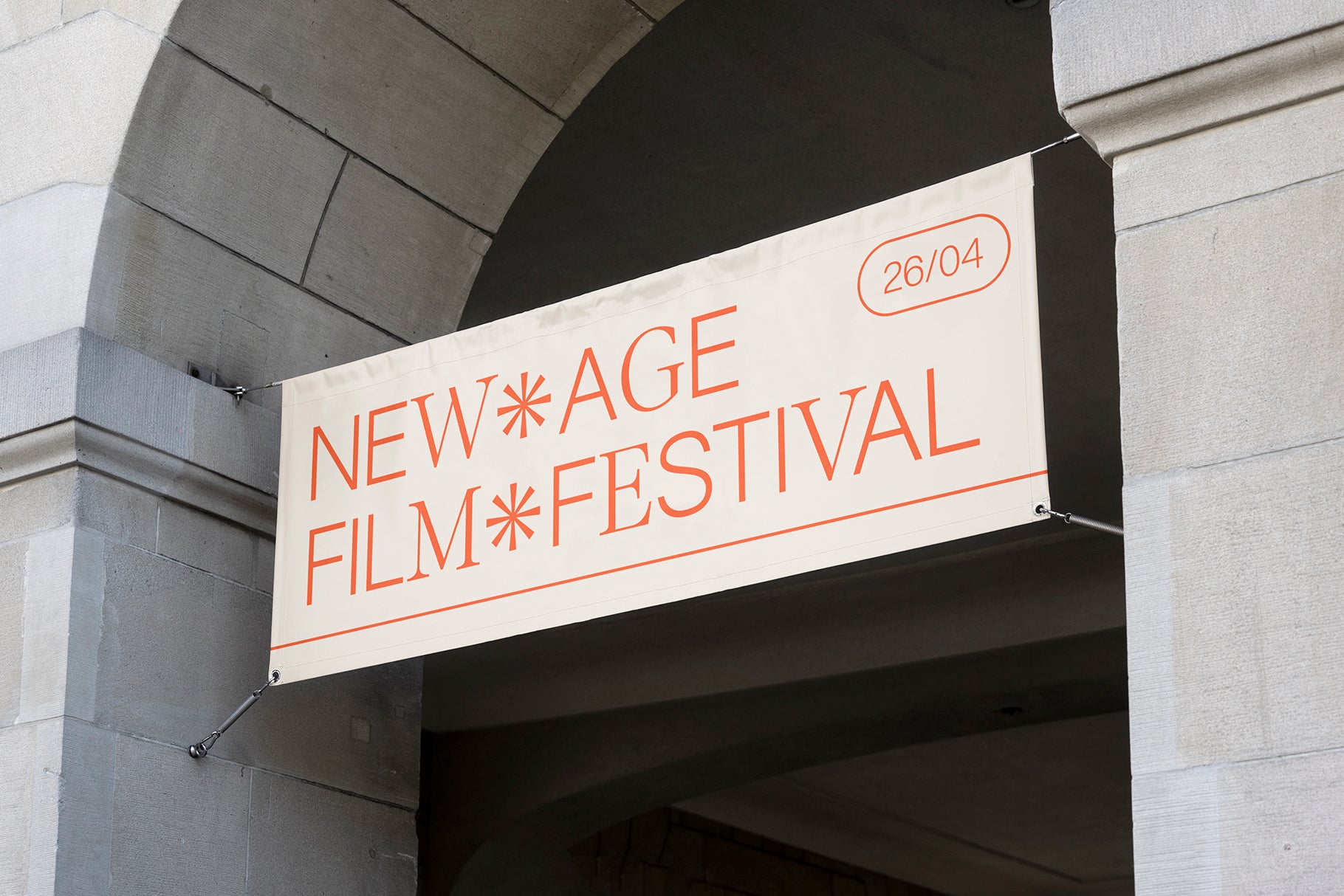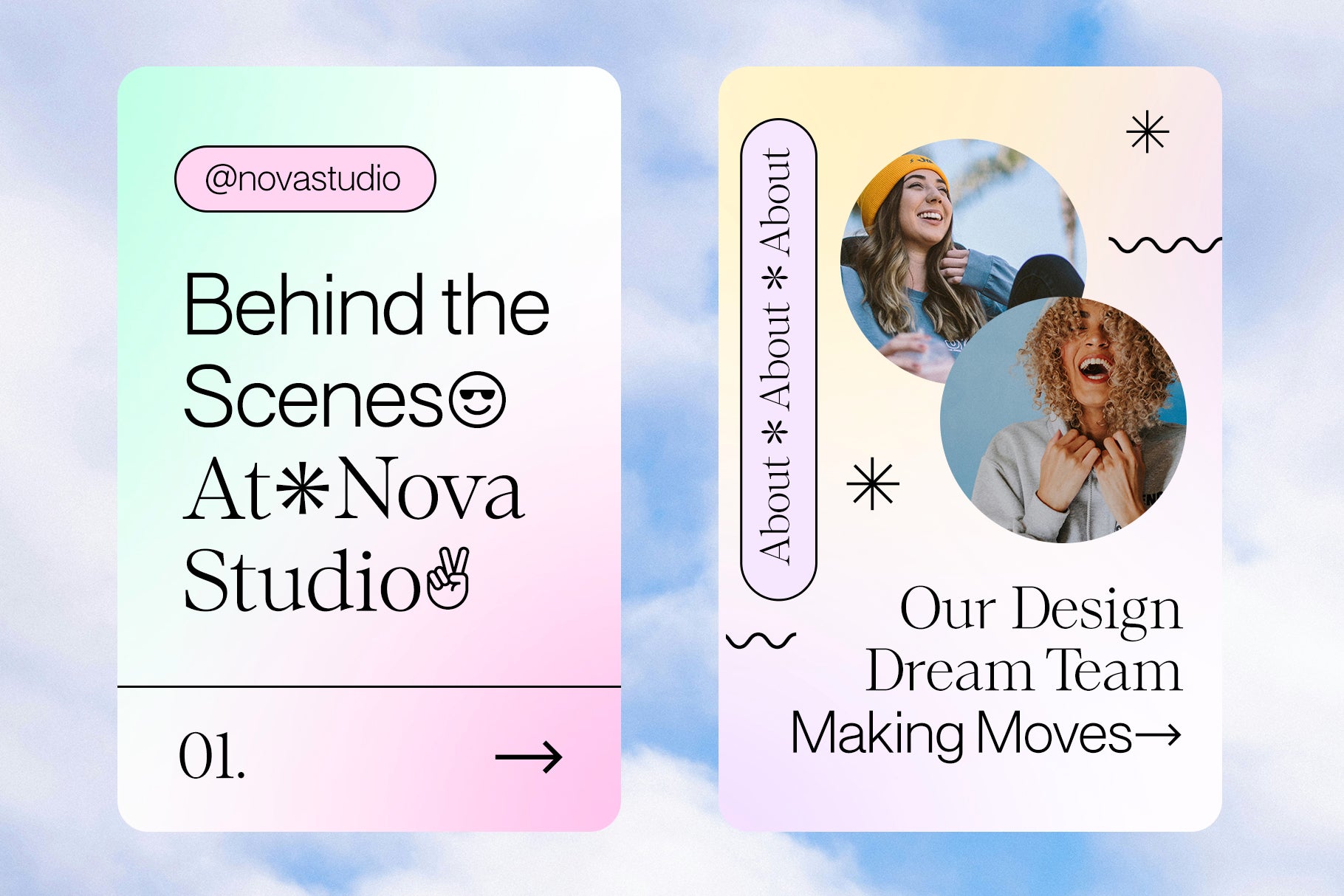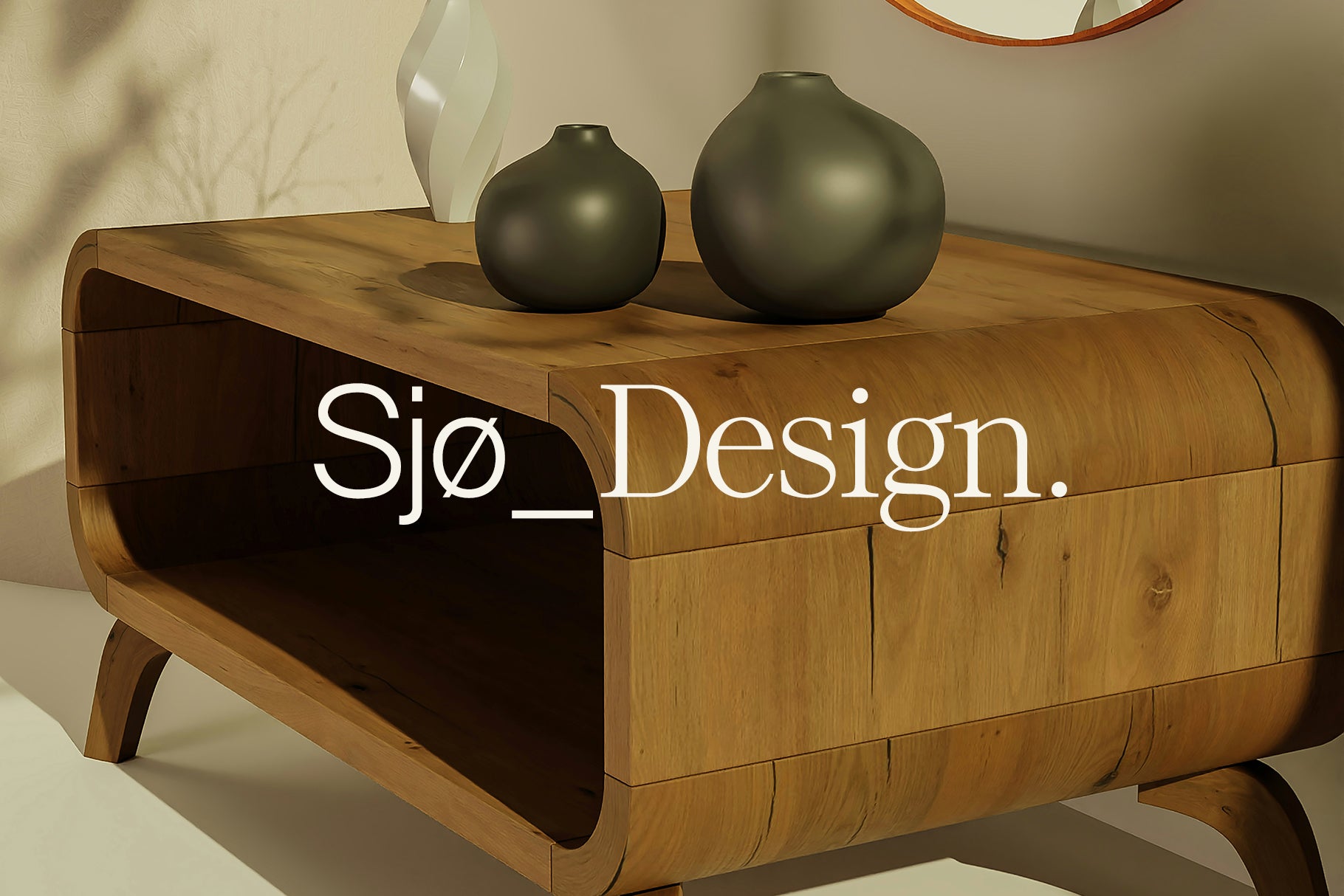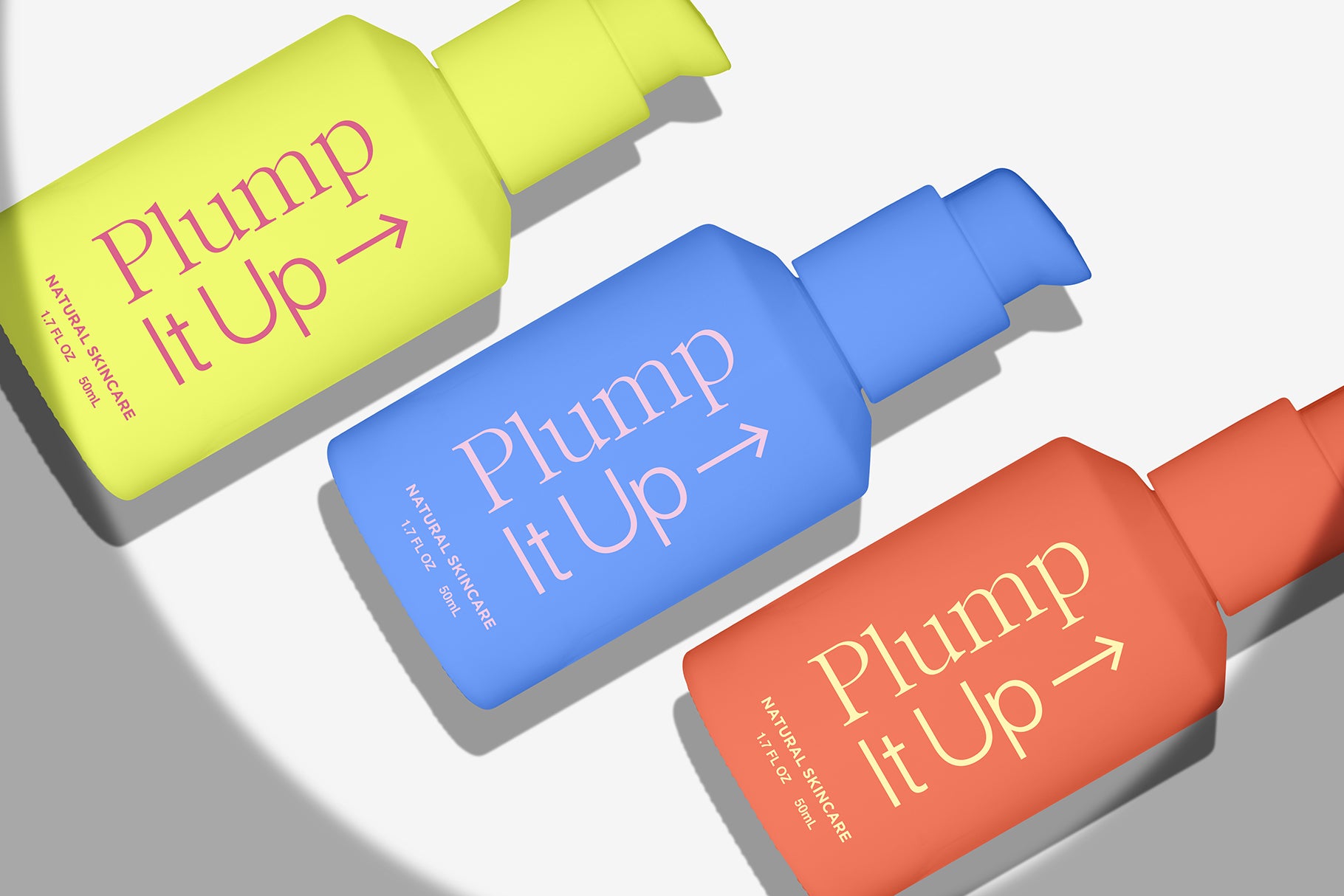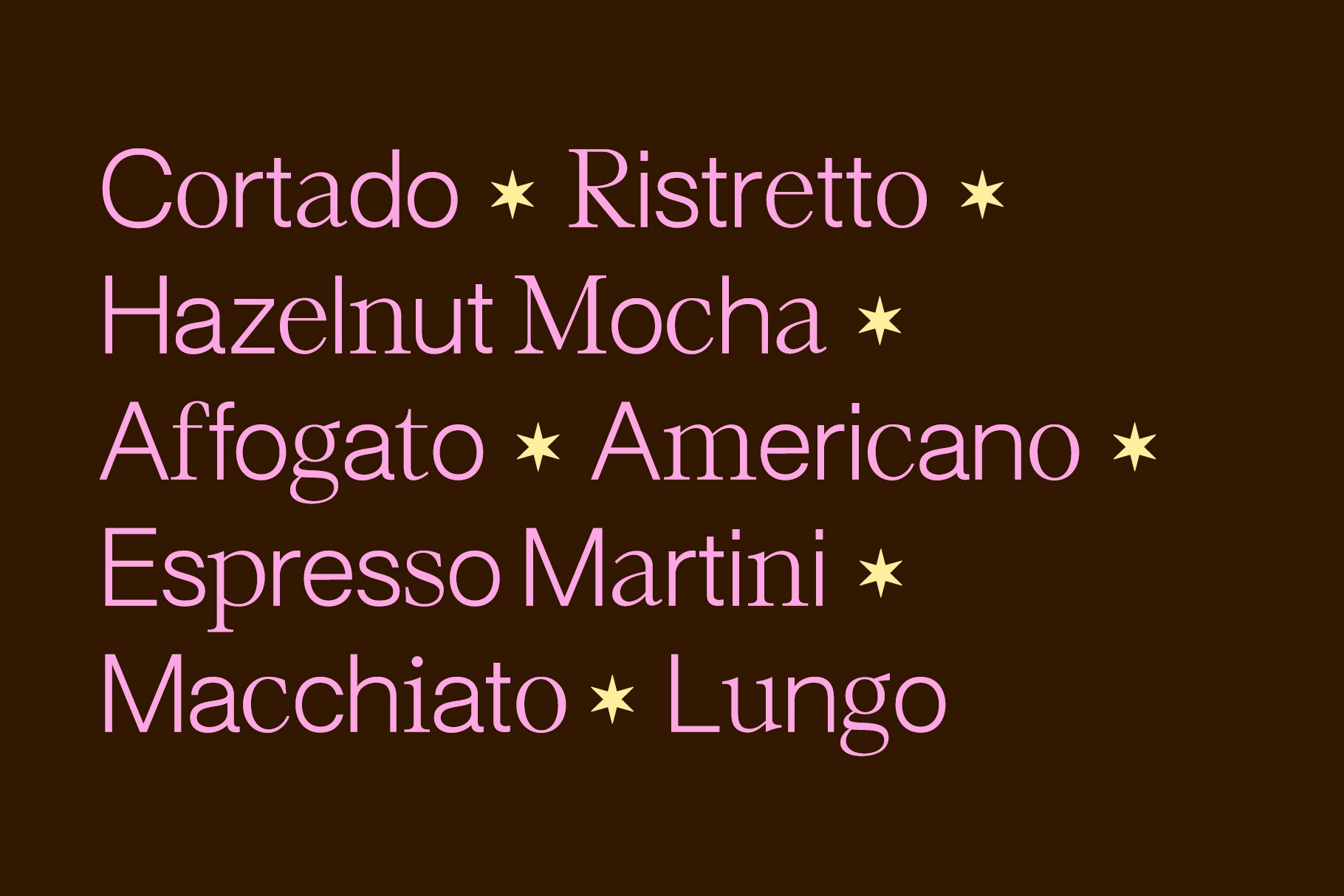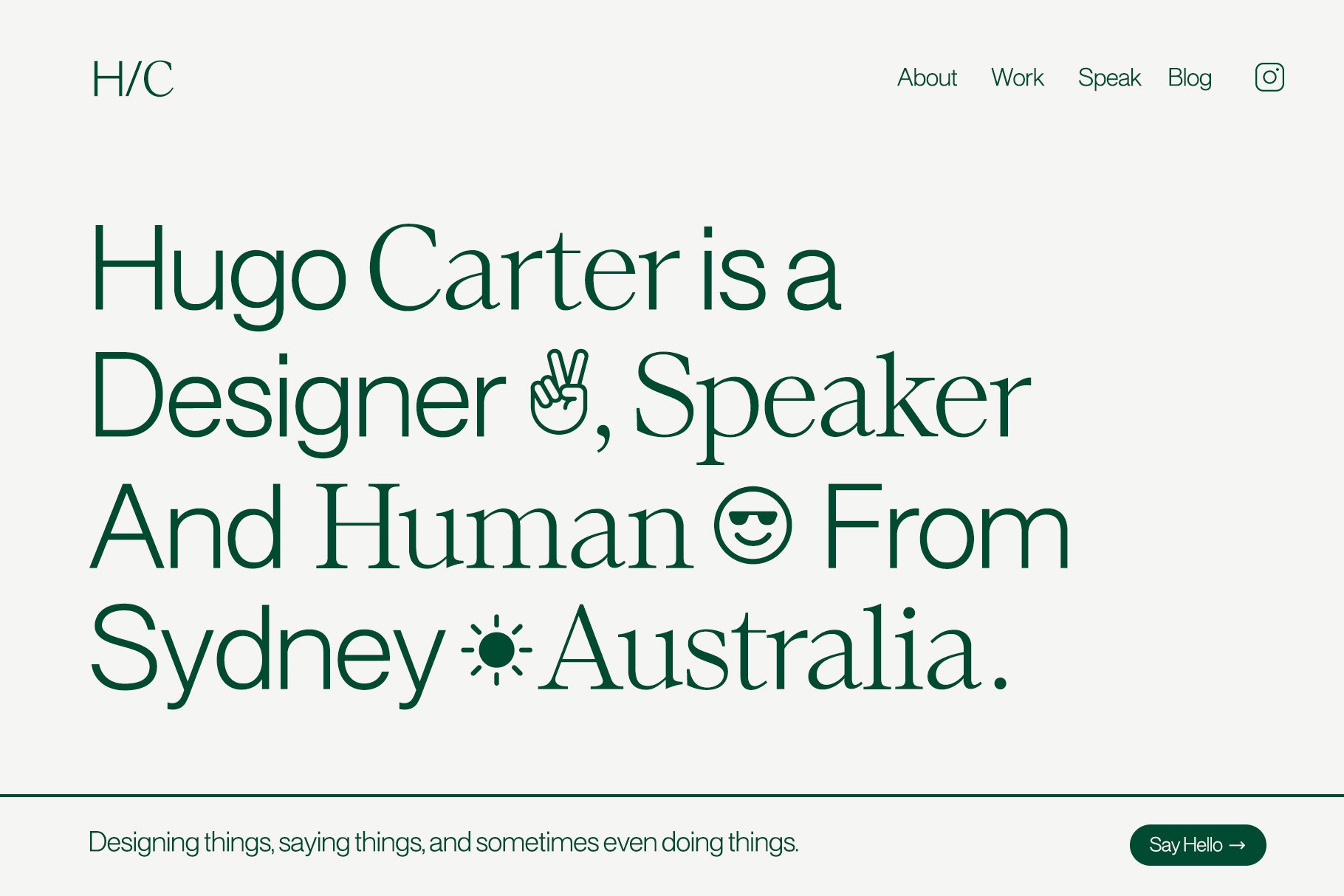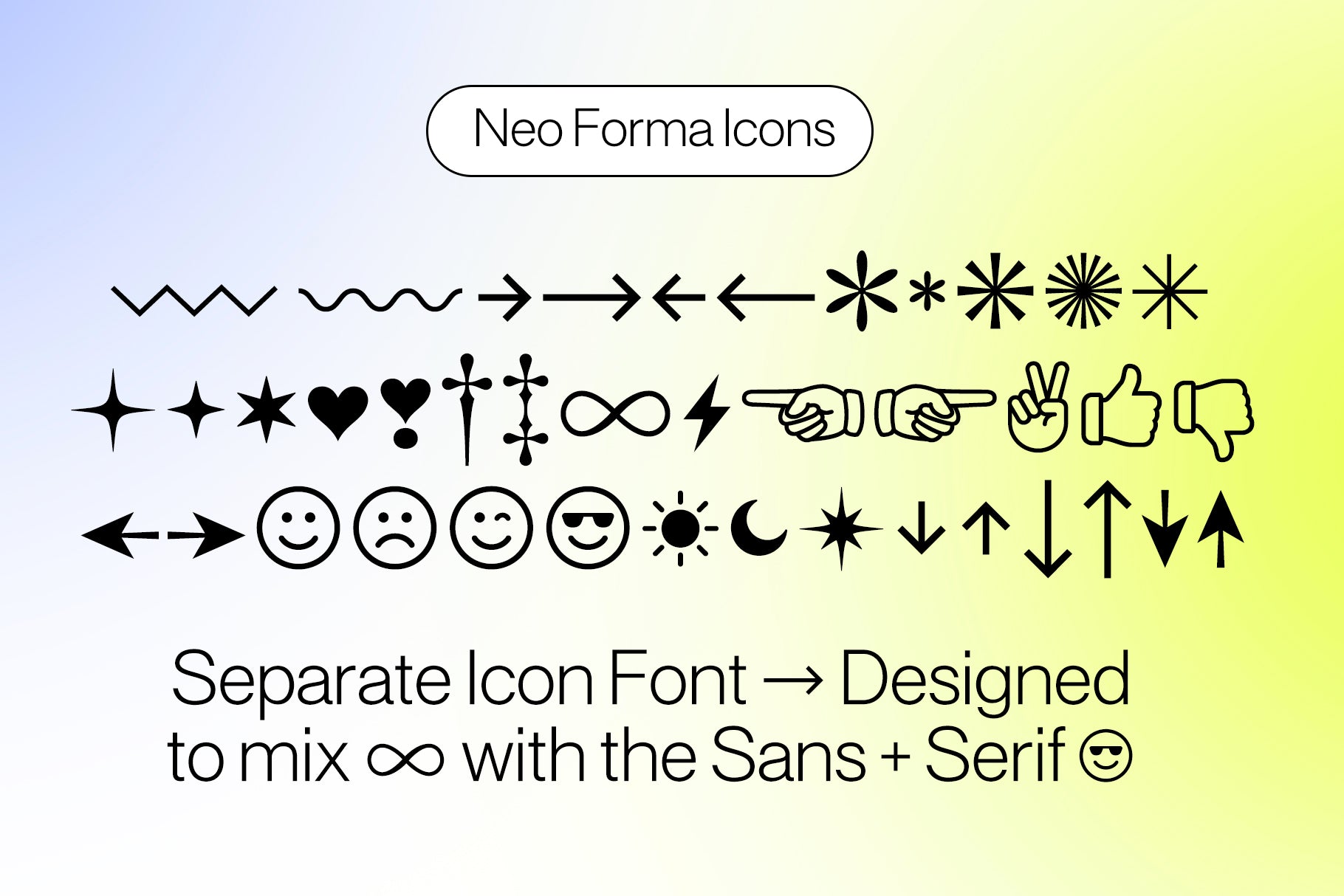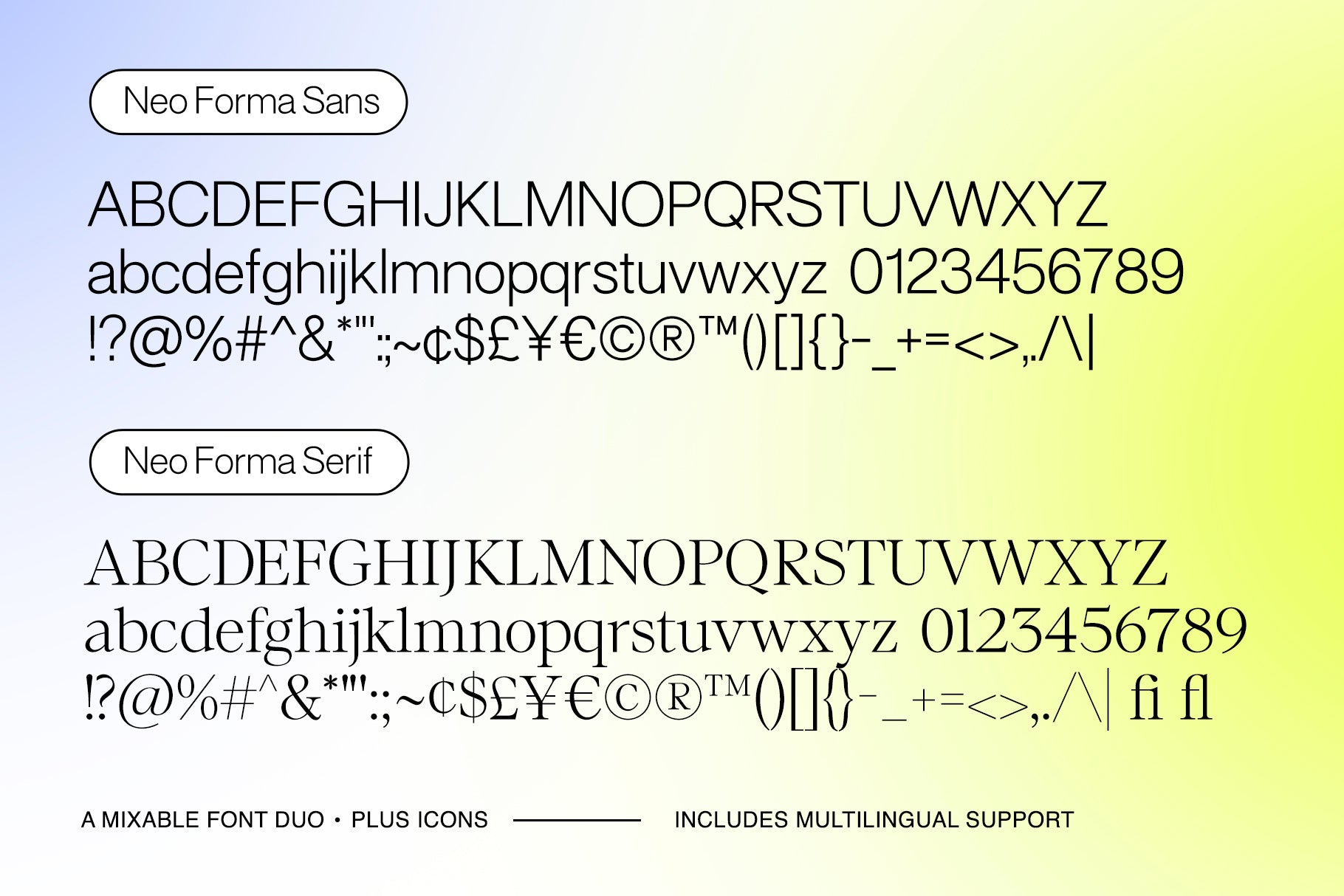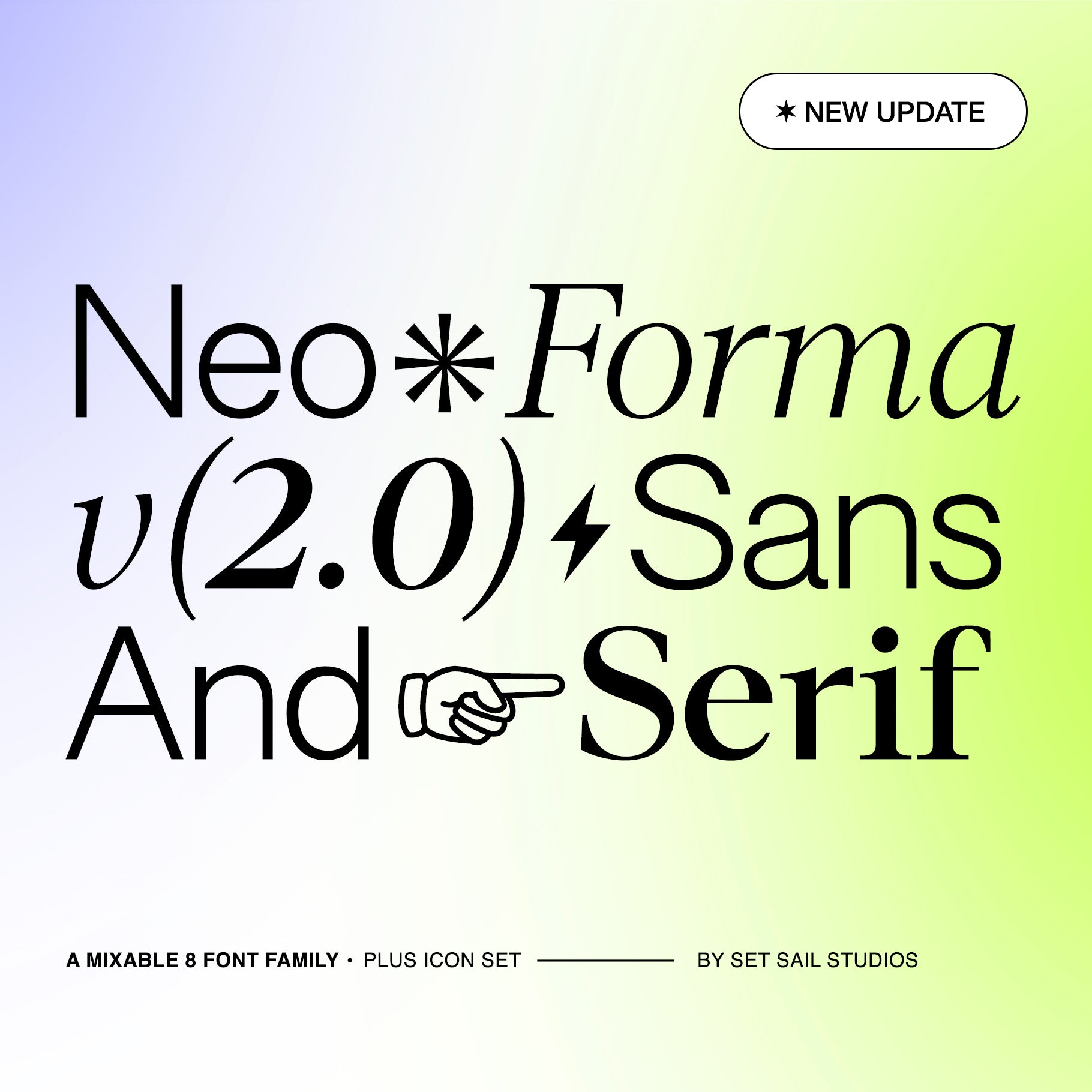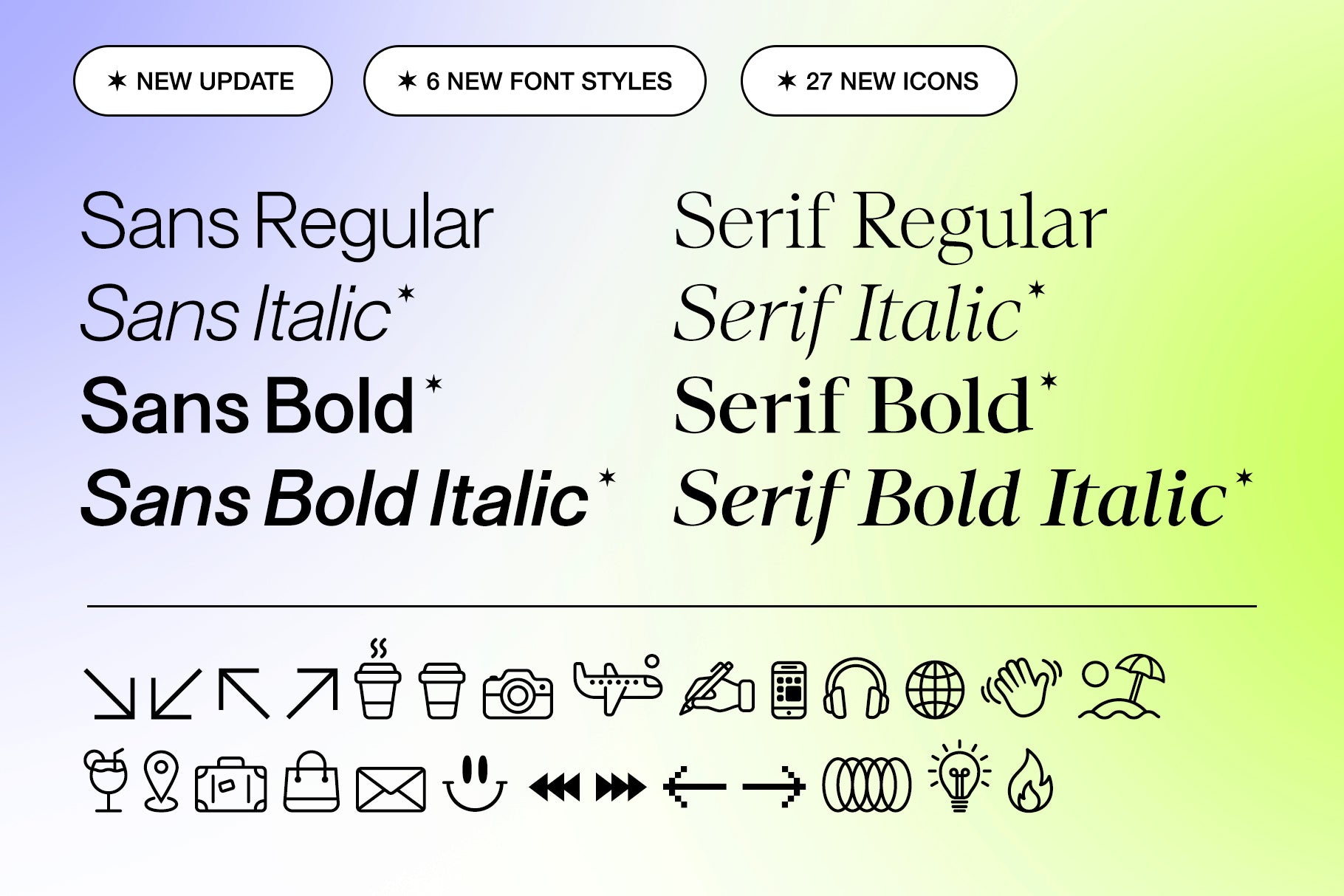
Neo Forma Sans + Serif Font Duo
The Neo Forma Sans + Serif Font Duo includes a modern pair of complementary fonts designed with matching weights and metrics for versatile pairing. It also features a separate Icon Font with 40 symbols, arrows, and emojis, providing a comprehensive typography package suitable for various projects. Language support includes multiple European and Indonesian languages.